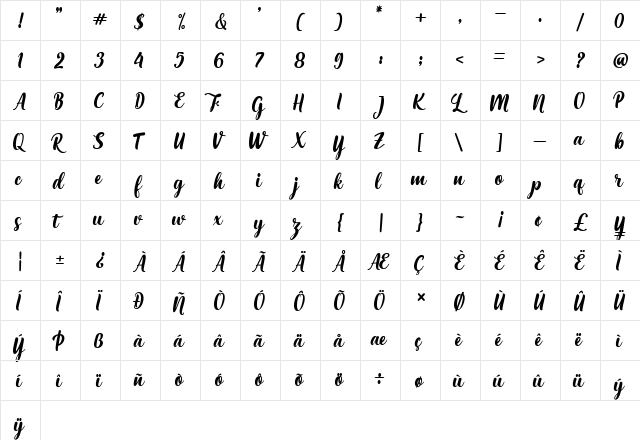
Maria Aishane Script Regular
| Foundry | Dora Type Foundry |
| Designer | Dora Type Foundry |
Design Context for Maria Aishane Script Typeface
Maria Aishane Script flows with the natural rhythm of handwritten lettering, making it ideal for designs that call for warmth and personal expression.
Font Pairing: Combine Maria Aishane Script with a simple geometric sans for maximum contrast — the tension between flowing curves and clean structure is a classic typographic pairing.
Pro Tip: Use Maria Aishane Script for short runs of text — names, titles, or taglines. Extended body copy in script faces tires the eye quickly.